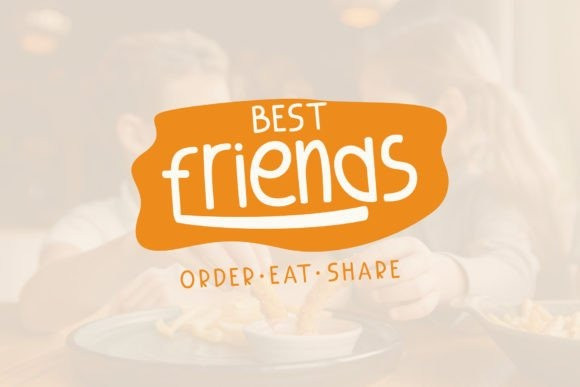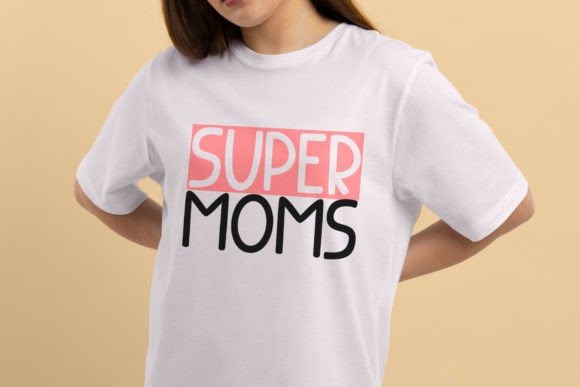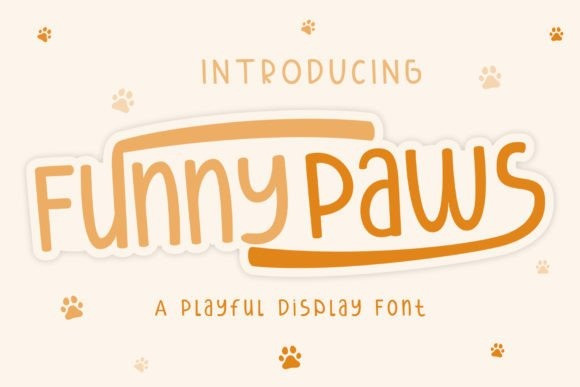
Funny Paws Font
Funny Paws Font is a playful display font that will bring joy and fun to your kid-friendly design projects. Whether you are working on a greeting card, a flyer, a t-shirt, or any other design project for children, Funny Paws will help you create a unique and eye-catching look.